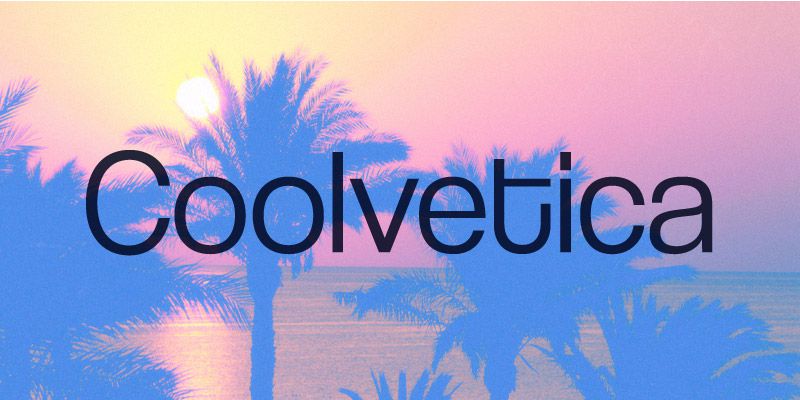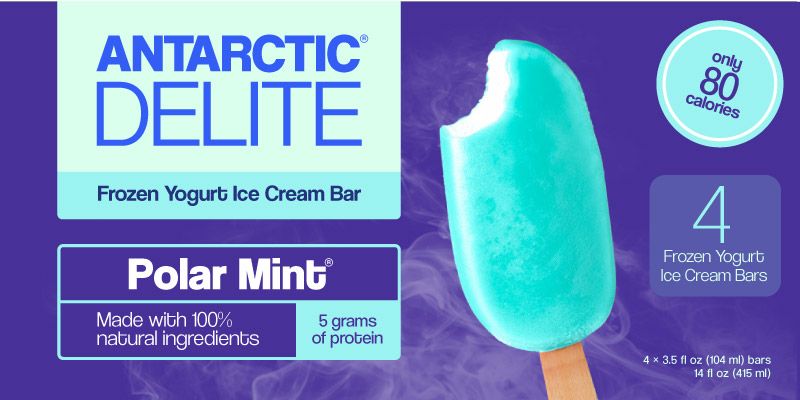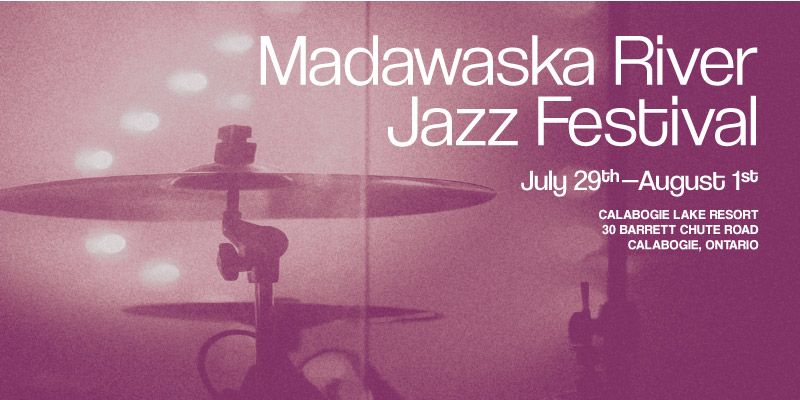
Coolvetica packs rounded, confident sans-serif forms into unusually tight display spacing. Its curls and close fit recall custom display lettering from the 1970s, especially when a short word is set large. Seven weights from UltraLight to Heavy, with matching italics, let the same voice shift between an airy heading and a dense, emphatic name. That makes it useful for personal-care packaging, beverage campaigns, entertainment identities, and short promotional phrases. Coolvetica works best where the lettering can behave as a graphic element. Give dense instructions and sustained copy more room in a complementary text face so the display voice keeps its snap.